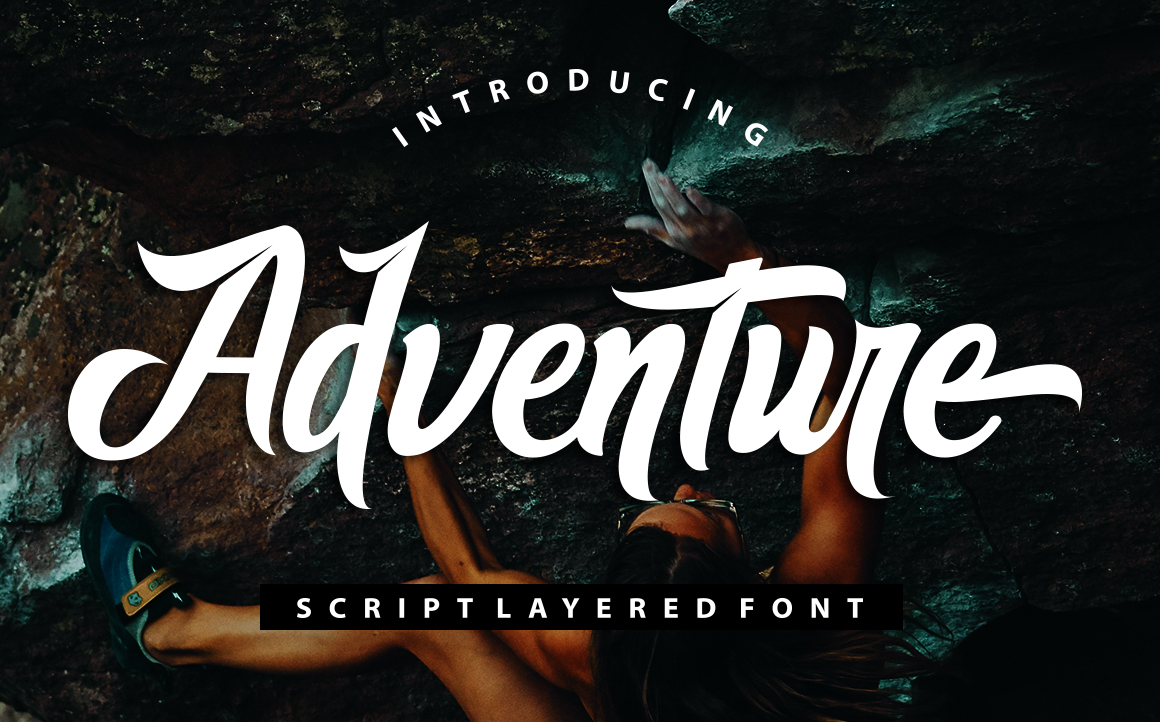
The Adventure is a striking layered font. It has a young, passionate design and is perfect for logos, t-shirts, branding, and more! Add this lovely freebie to your creations and take your designs to the next level!